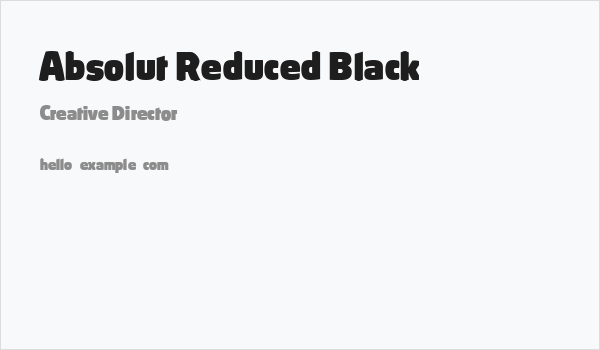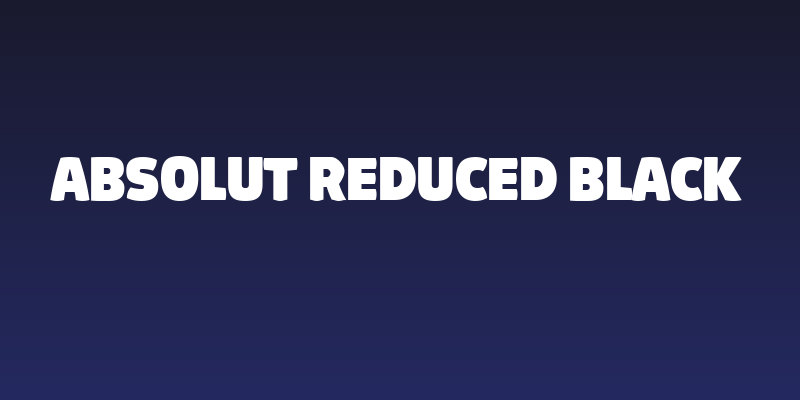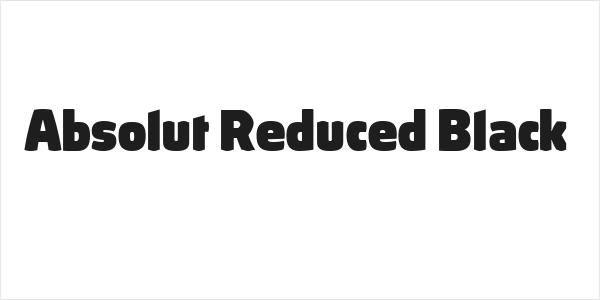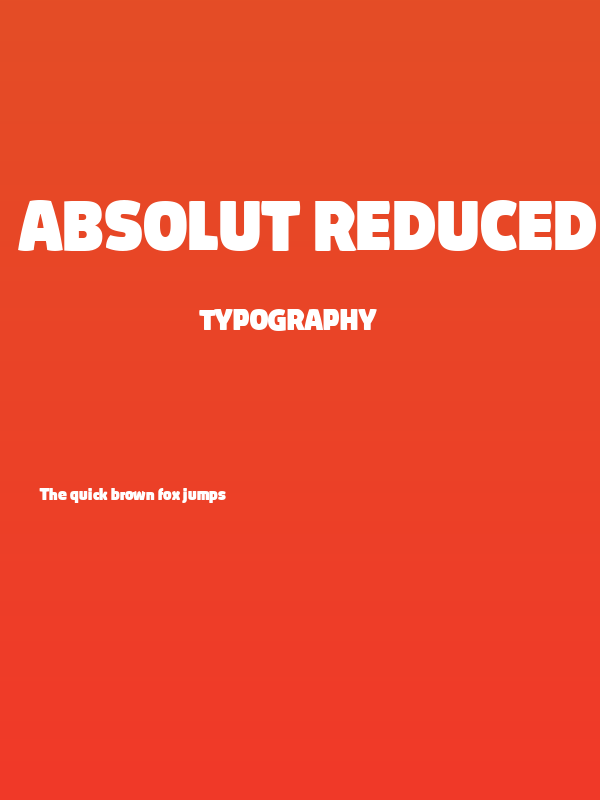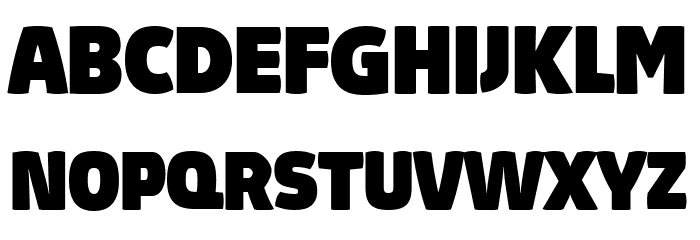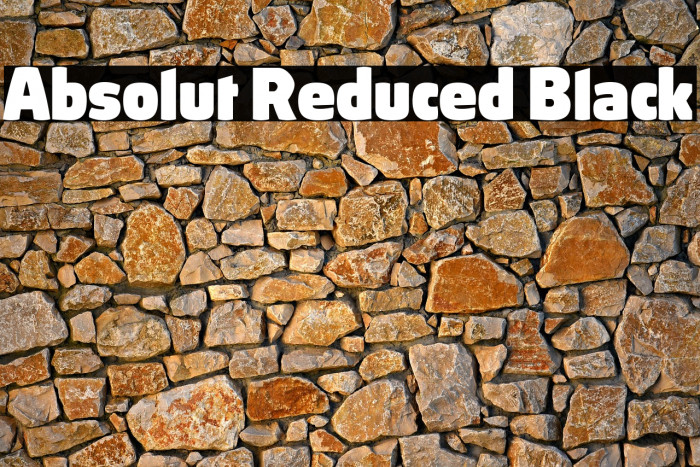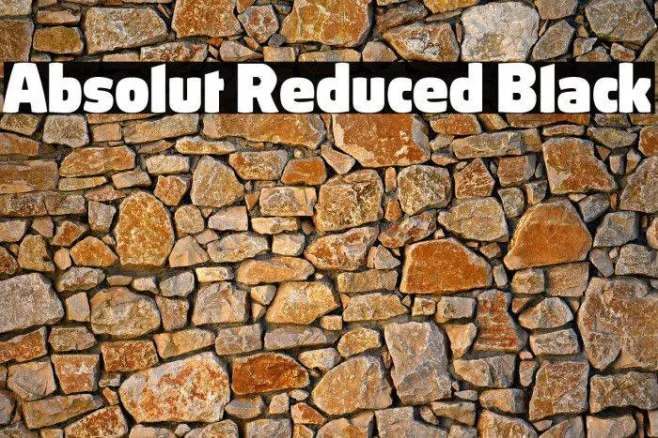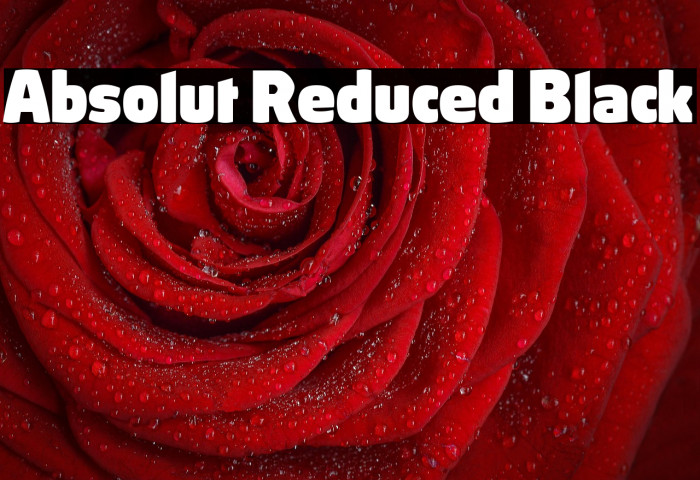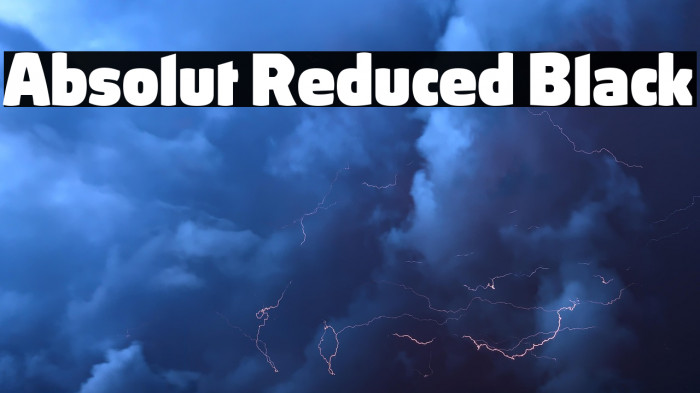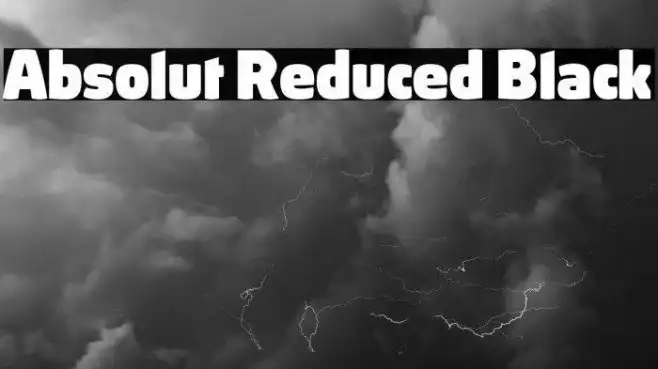
Absolut Reduced Black Font
Absolut Reduced Black Description
This font features bold, rounded characters with a strong presence, making it ideal for impactful designs. The uppercase and lowercase letters are consistent in their boldness, providing a uniform look across different text sizes. The characters are slightly condensed, which enhances their readability in tight spaces. The font's design is modern and clean, with a playful touch due to its rounded edges. It maintains a high contrast between the thick strokes and the negative space, ensuring that each letter stands out distinctly. This style is versatile, suitable for both digital and print media, and can be used to convey a sense of strength and reliability.
| Proposed Projects | Ideal for branding, headlines, posters, and advertising materials. |